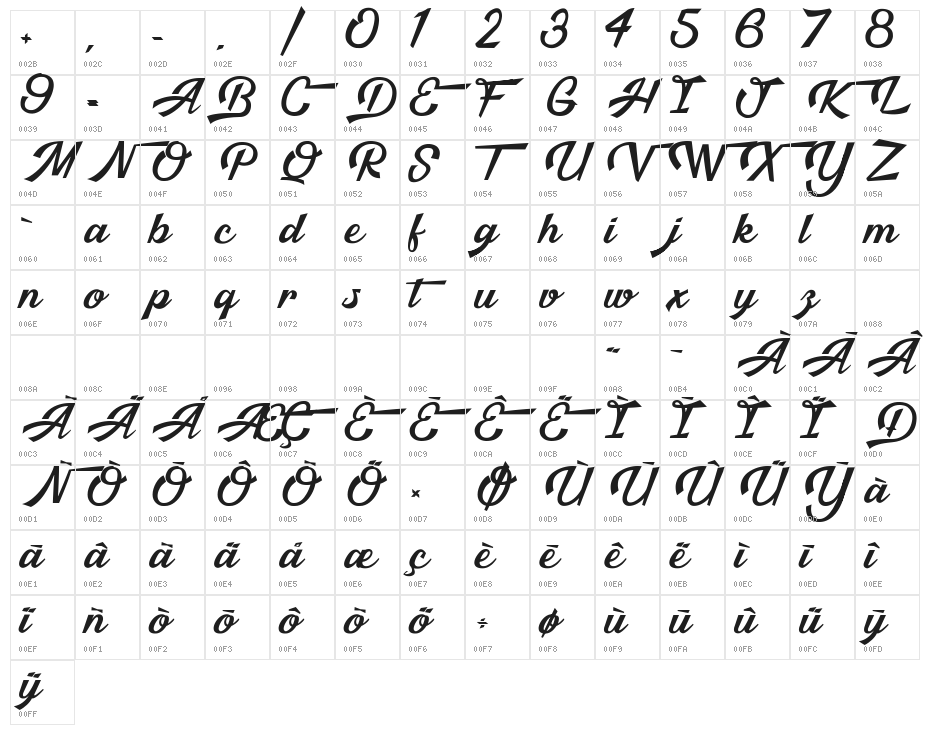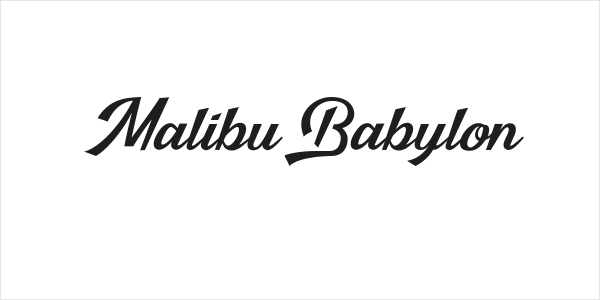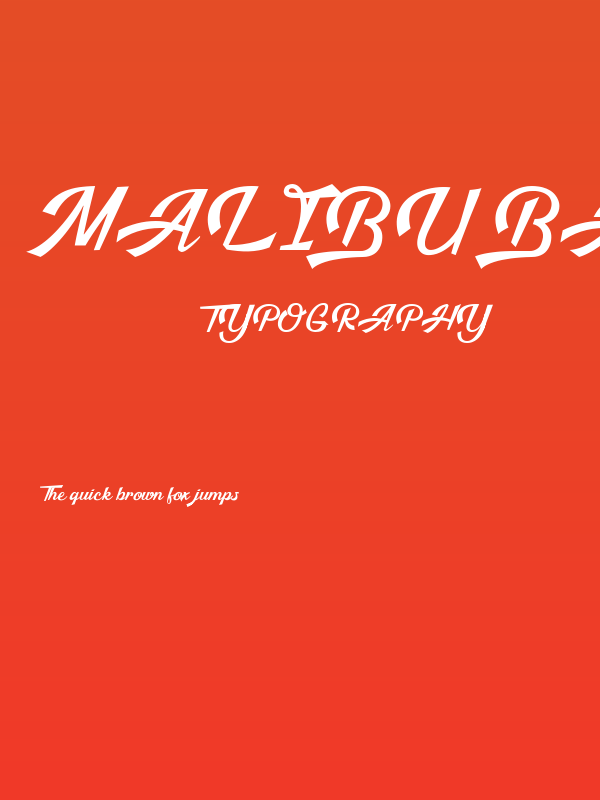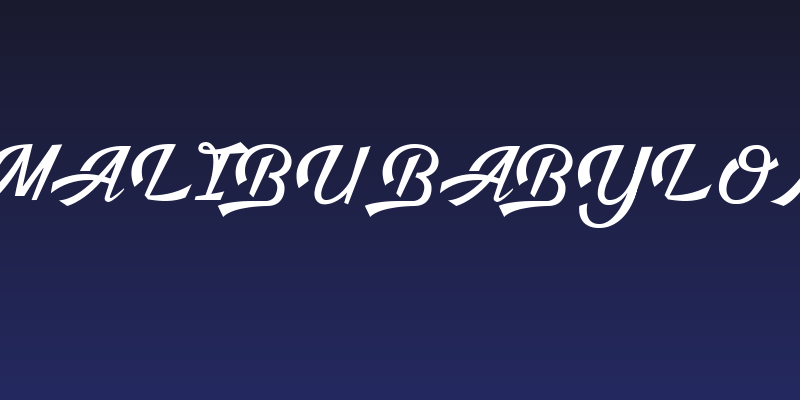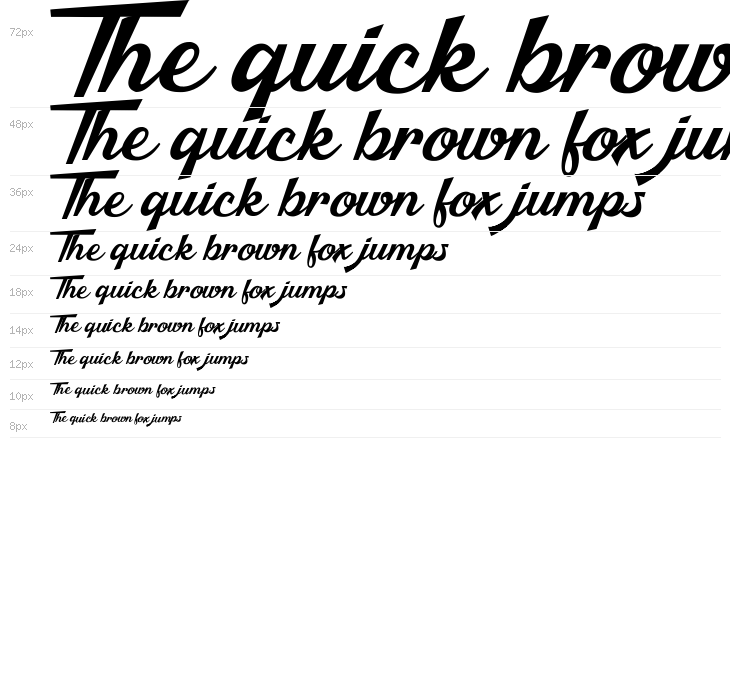
Malibu Babylon Font
Malibu Babylon Description
This font exudes a bold and dynamic script style, characterized by its flowing, cursive letters that convey a sense of elegance and movement. The uppercase letters are particularly striking, with sweeping curves and dramatic flourishes that give them a sense of grandeur. The lowercase letters maintain a consistent style, with smooth connections and a slightly slanted orientation that enhances the overall fluidity. The numerals are equally stylish, featuring a harmonious blend of curves and angles. Special characters are thoughtfully designed to match the font's aesthetic, ensuring a cohesive look across all text. This font is perfect for projects that require a touch of sophistication and flair.
Use CaseLogos, Headlines, Invitations
Proposed ProjectsIdeal for wedding invitations, luxury branding, elegant signage, and artistic posters.